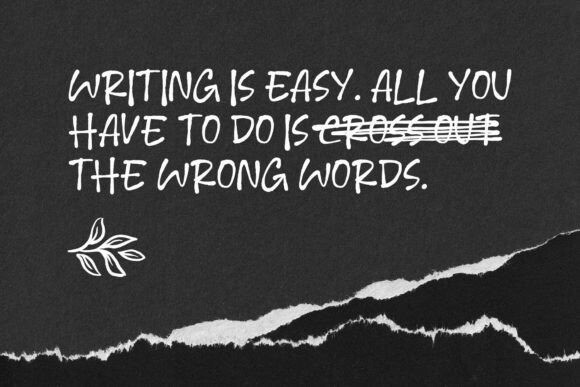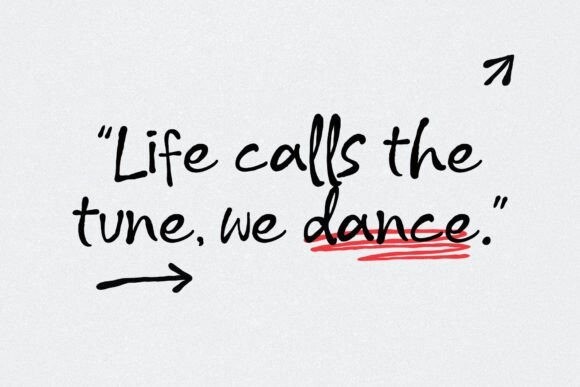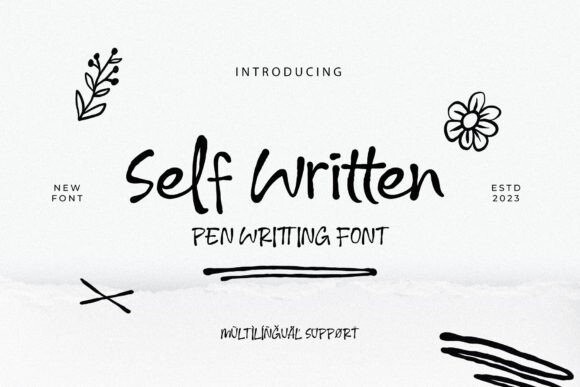
Self Written Font
Designer: Lettermine
Self Written Font is an enticing creation of organic handwriting that sparks the imagination. Every line is crafted with tender care, lending a personal touch and uniqueness to each character. With unexpected grace, this font establishes a warm and inviting atmosphere, inviting readers to feel the softness of every stroke.